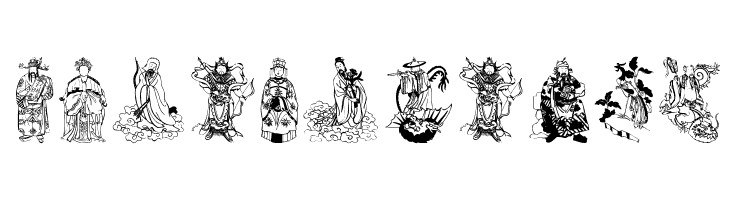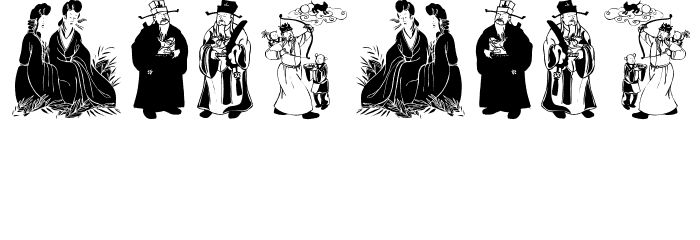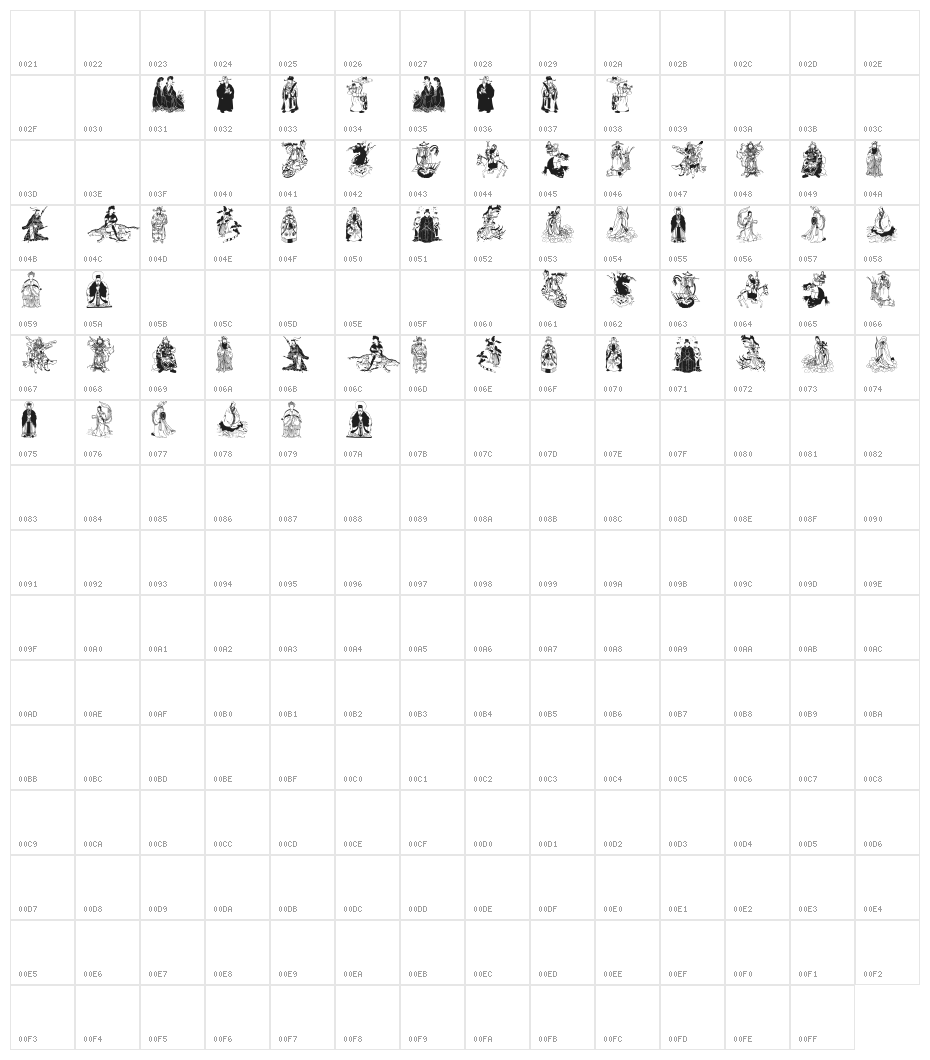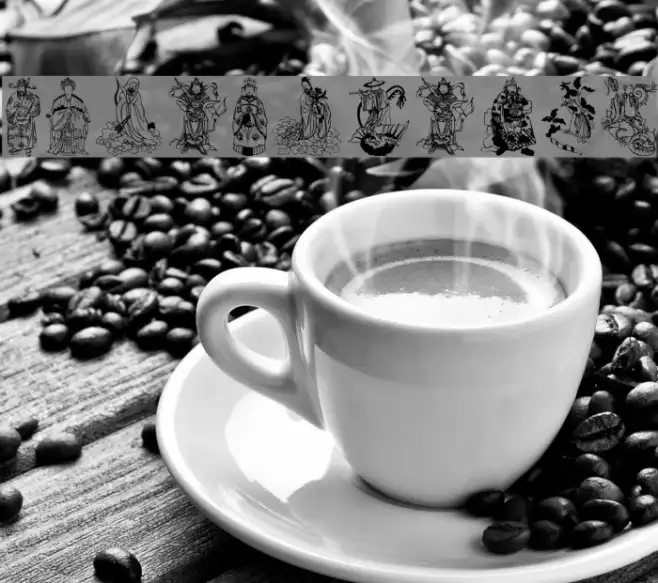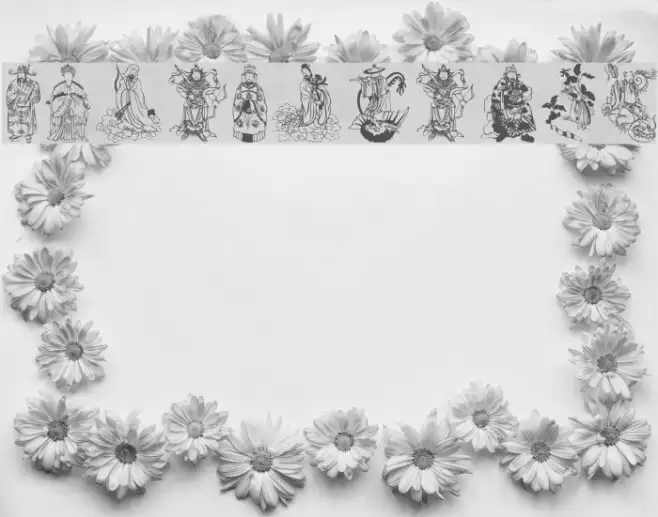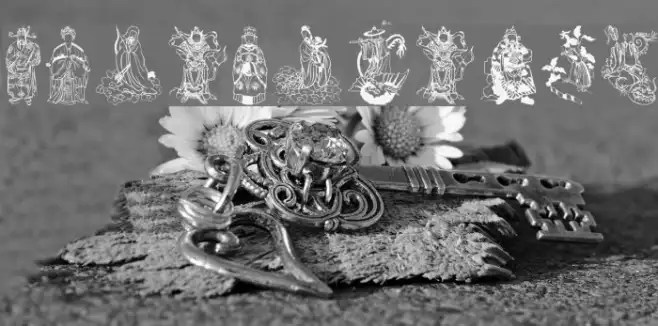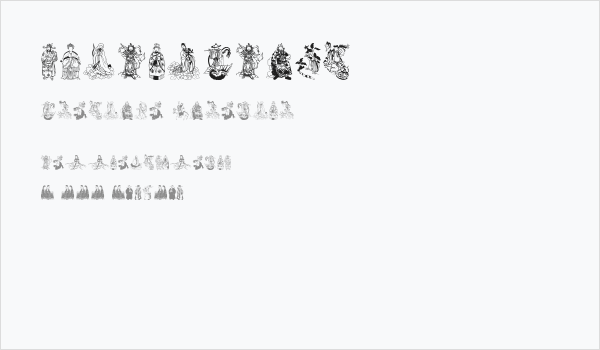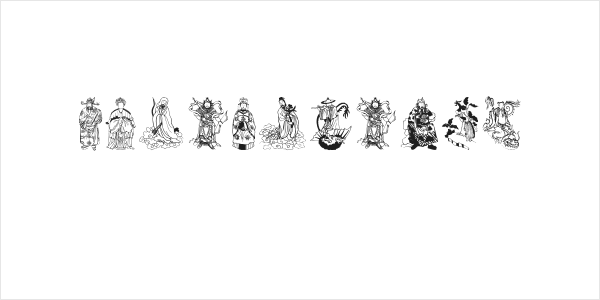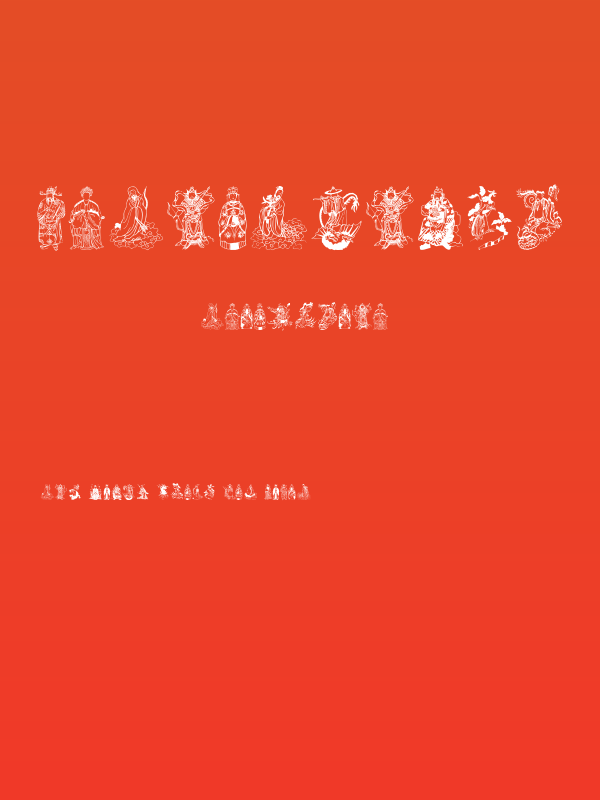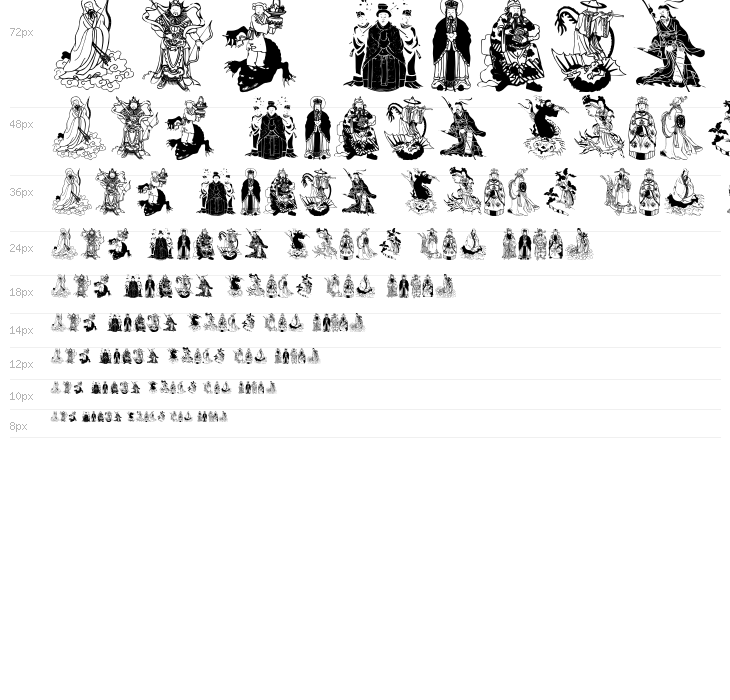
MythosChina Font
MythosChina Description
A highly decorative and illustrative set of characters, each letter and symbol is represented by detailed black-and-white drawings of figures in traditional East Asian attire and mythological poses, with intricate line work and strong visual storytelling elements.
| Overall Style | Decorative, Mythological, Artistic |
| Use Case | Logos, Headlines, Posters, Artistic titles |
| Proposed Projects | Book covers, posters, cultural event branding, themed invitations, art projects. |